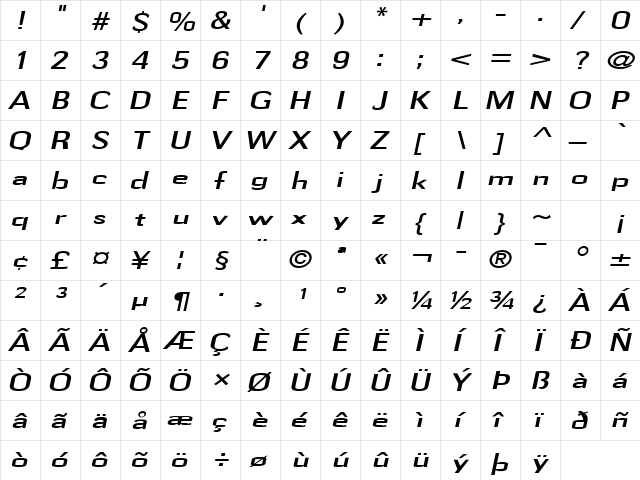
Gauss-Extended Italic
Design Context for Gauss-Extended Typeface
Gauss-Extended offers clean, dependable letterforms without strong stylistic allegiance, making it a practical choice for designers who need flexibility. The dynamic lean of this cut emphasises speed and emphasis in any layout.
Pro Tip: Use Gauss-Extended for emphasis, pull quotes, and subheadings where its slanted energy can add rhythm to the layout.